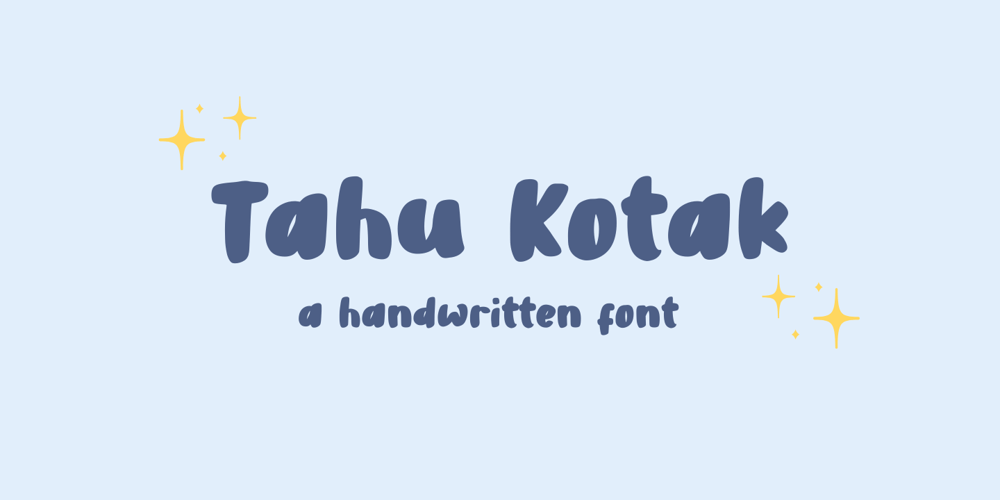
Tahu Kotak
Tahu Kotak font
Tahu Kotak Font Family was designed by Muhamad Yusron Billah and published by Sronstudio. Tahu Kotak contains 1 styles and family package options. Tahu Kotak – Handwritten Font is a fun display Font font, this font Is perfect for product packaging, product designs, label, photography, watermark, special events, or anything.Features: Uppercase and lowercase letters Multilingual, numerals, and punctuation Thank You!